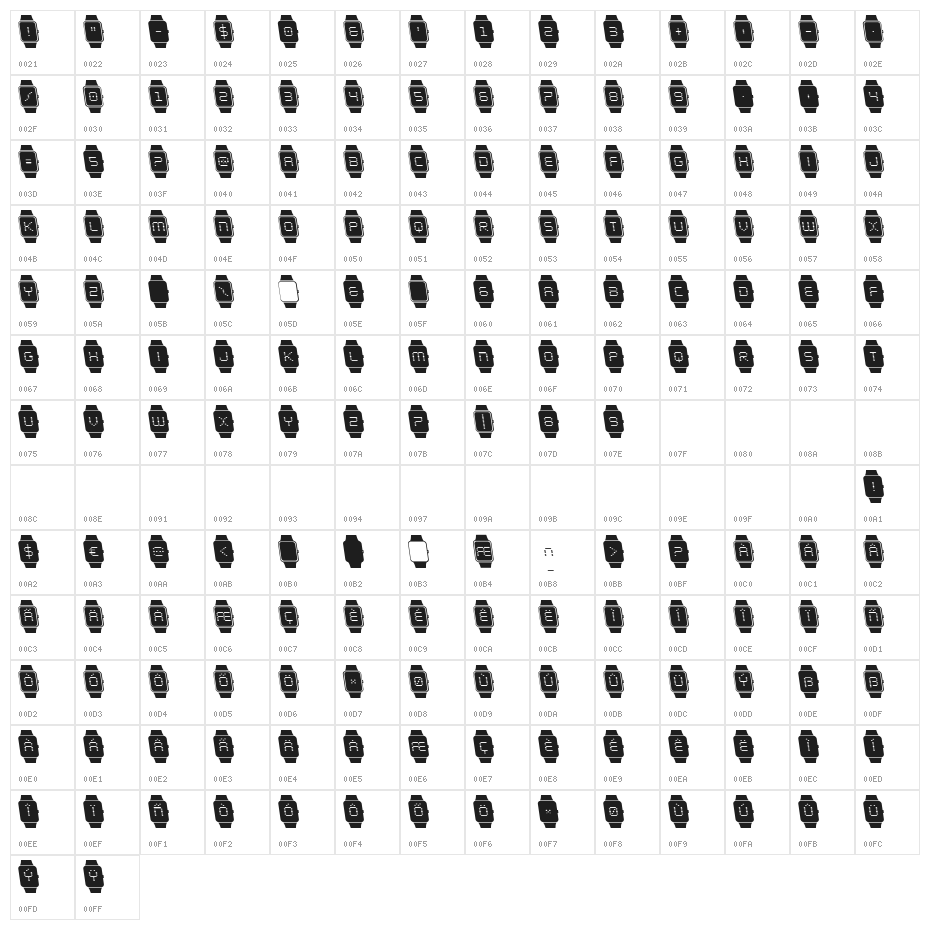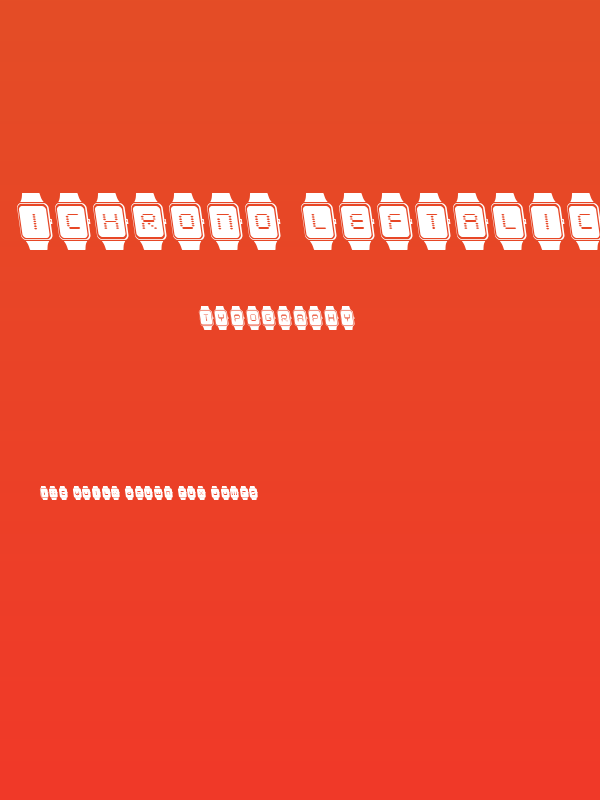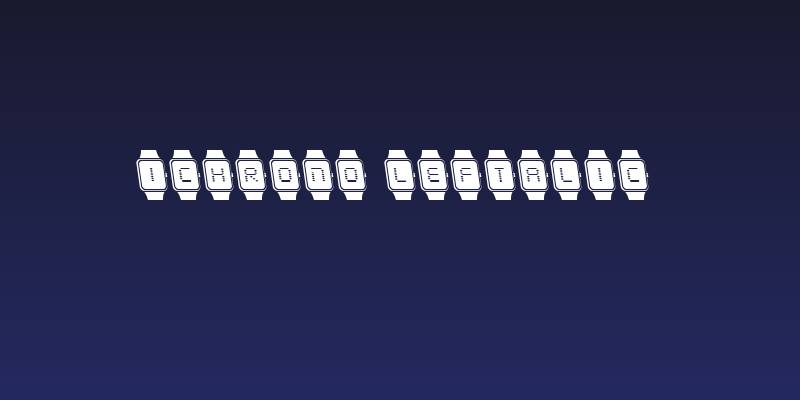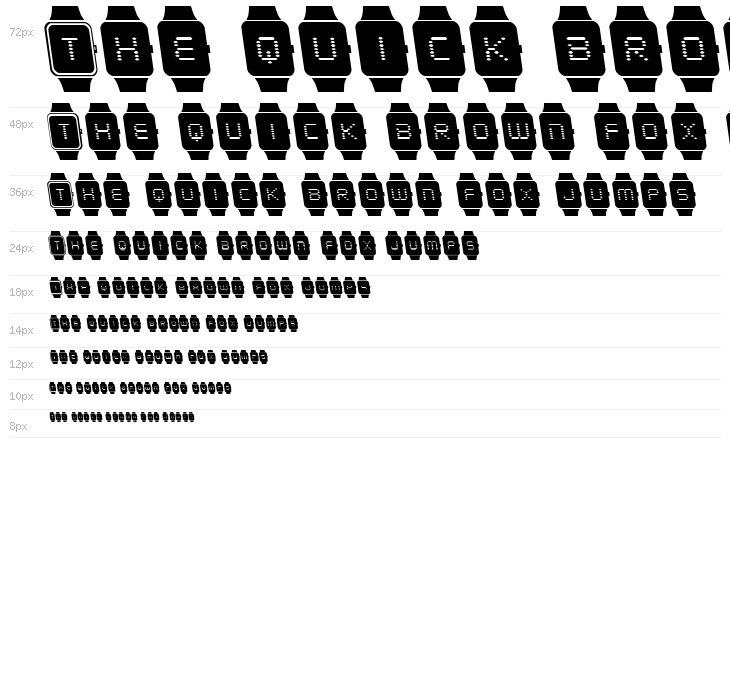
iChrono Leftalic Font
iChrono Leftalic Description
This font is designed to mimic the appearance of digital watch displays, with each character enclosed within a watch face outline. The characters are formed using a series of dots, creating a pixelated effect reminiscent of early digital technology. The design is both nostalgic and futuristic, capturing the essence of digital timekeeping. The characters are evenly spaced and maintain a consistent size, ensuring readability. This unique style is perfect for projects that require a tech-savvy or retro digital aesthetic.
| Overall Style | Futuristic, Retro |
| Use Case | Logos, Headlines, Digital Displays |
| Proposed Projects | Ideal for digital-themed designs, tech-related branding, retro gaming interfaces, and futuristic displays. |